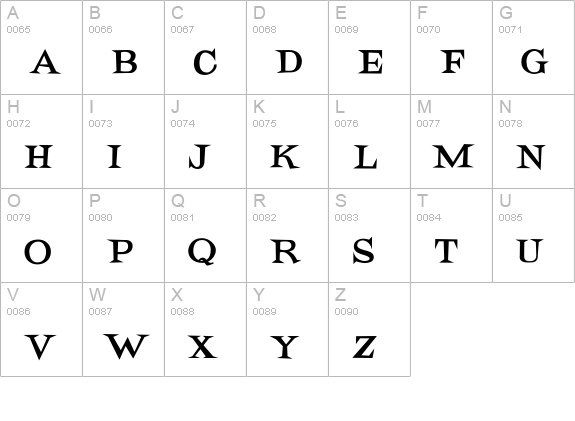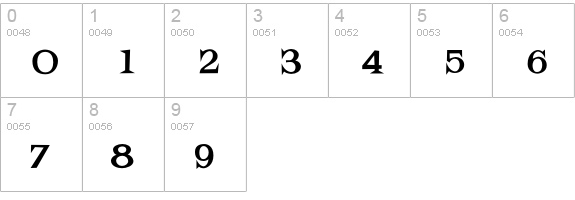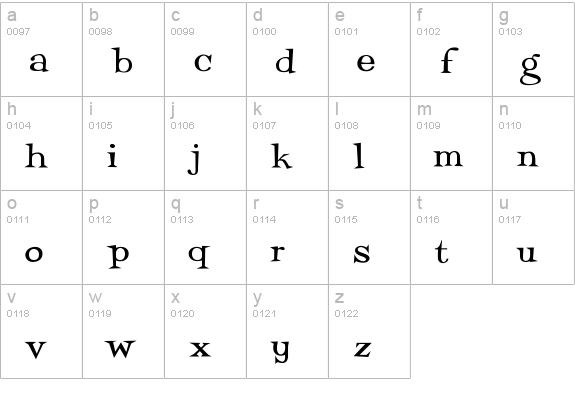
Potrzebie Font Details
Potrzebie font is a modern and stylish typeface that exudes a sense of sophistication and elegance. Its sleek lines and contemporary design make it perfect for a wide range of projects, from branding to editorial design. The font features a unique blend of classic and modern elements, creating a distinct look that is sure to make your text stand out. What sets Potrzebie font apart is not only its visual appeal but also its versatility. Whether you're designing a logo, creating a poster, or working on a website, this font is sure to elevate your design and give it that extra touch of sophistication. Best of all, Potrzebie font is completely free to download at FontsMarket.com. So go ahead and give your projects a stylish and modern edge with this stunning typeface.